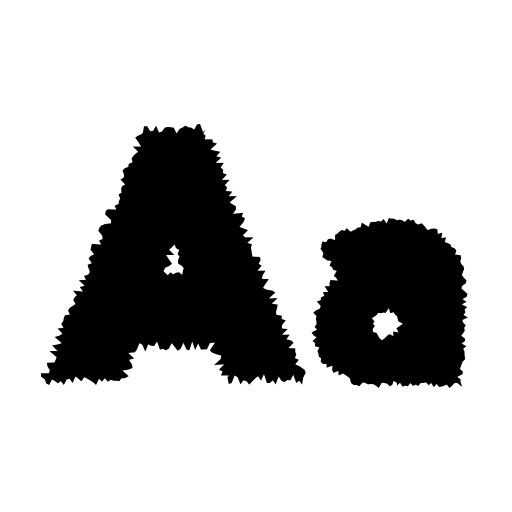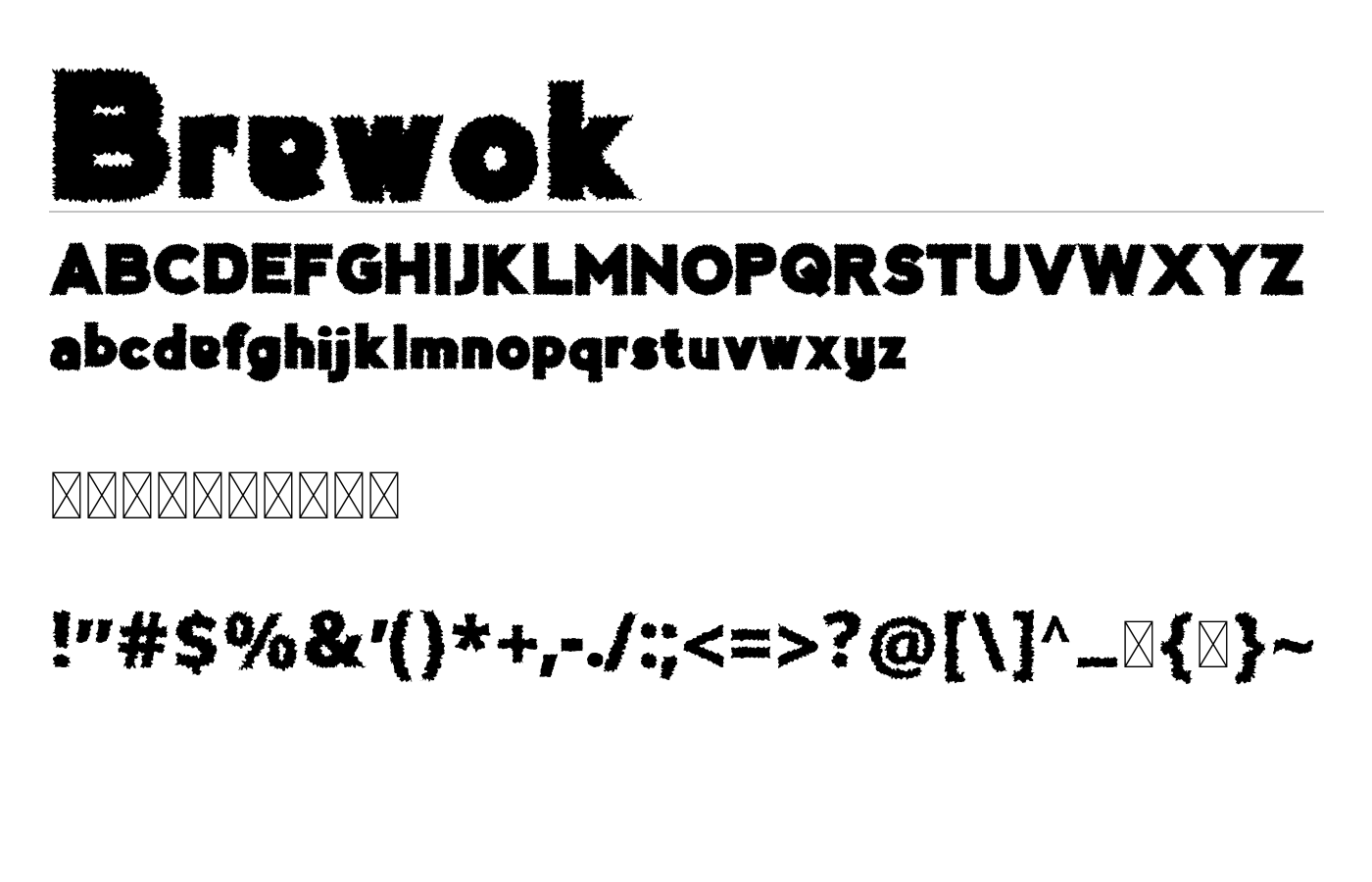
Brewok is a bold, playful sans serif font with a distinctive textured edge that gives it a fuzzy, handcrafted feel. Its strong weight and compact letterforms make it highly visible and fun, perfect for headlines, branding, or creative projects that want to convey energy and uniqueness. This font shines in designs where a casual, eye-catching look is desired, such as posters, packaging, and children's materials.
Brewok Font
About Brewok Font
| Font family | Brewok Font |
| Designer | Ahmad Syarif Afandi & Christ Desmon (Peterdraw) |